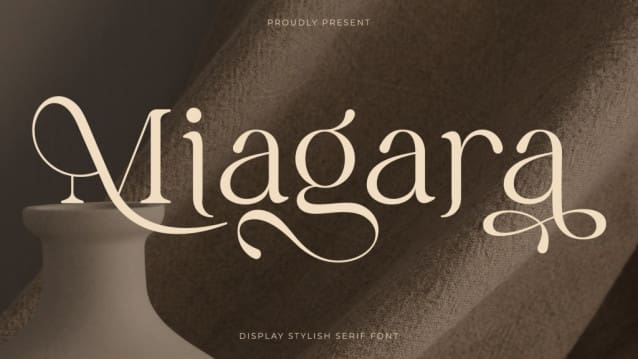
Miagara Font
Miagara Font, a Stylish Serif Font tailored for the realms of fashion, beauty, and brand identity. This font effortlessly blends elegance, modernity, and femininity, making it the ideal choice for those seeking a touch of sophistication in their projects.